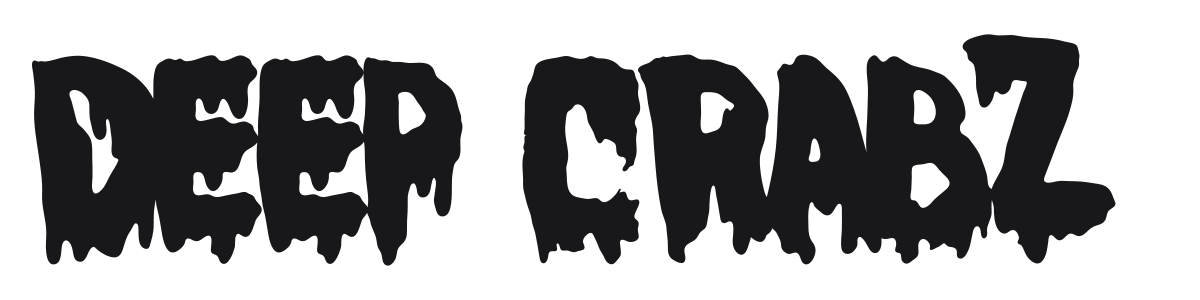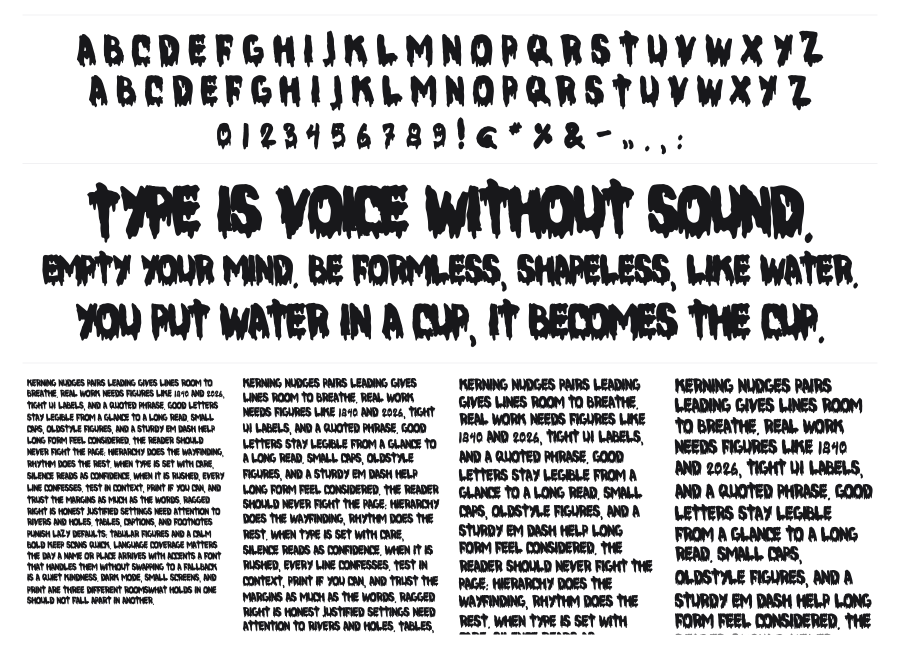
Deep Crabz
Deep Crabz is a heavy horror display font built around dripping, melting strokes that look like they're dissolving from the inside out. Every character carries an organic, viscous texture with rough edges and downward-bleeding forms that lean hard into genre aesthetics. It works loudly at large sizes for posters, album art, and horror-themed branding.